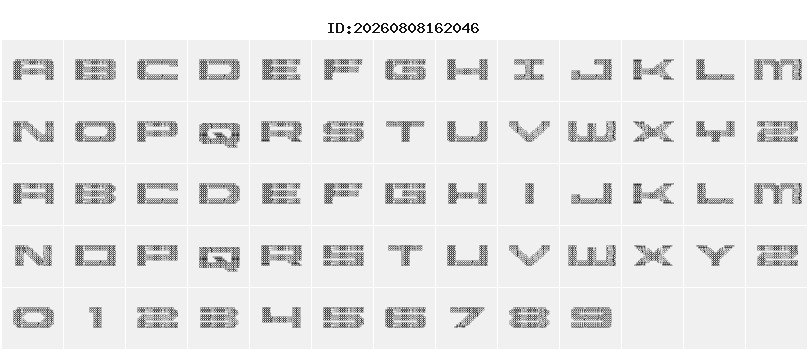
Pocket Ball 3D Preview
• Font Name: Pocket Ball 3D
• Full Font Name: Pocket Ball 3D
About Pocket Ball 3D.ttf
Pocket Ball 3D.ttf is a modern, elegant sans-serif font designed for ultimate readability and visual harmony. Perfect for branding, headlines, web design, and print materials.